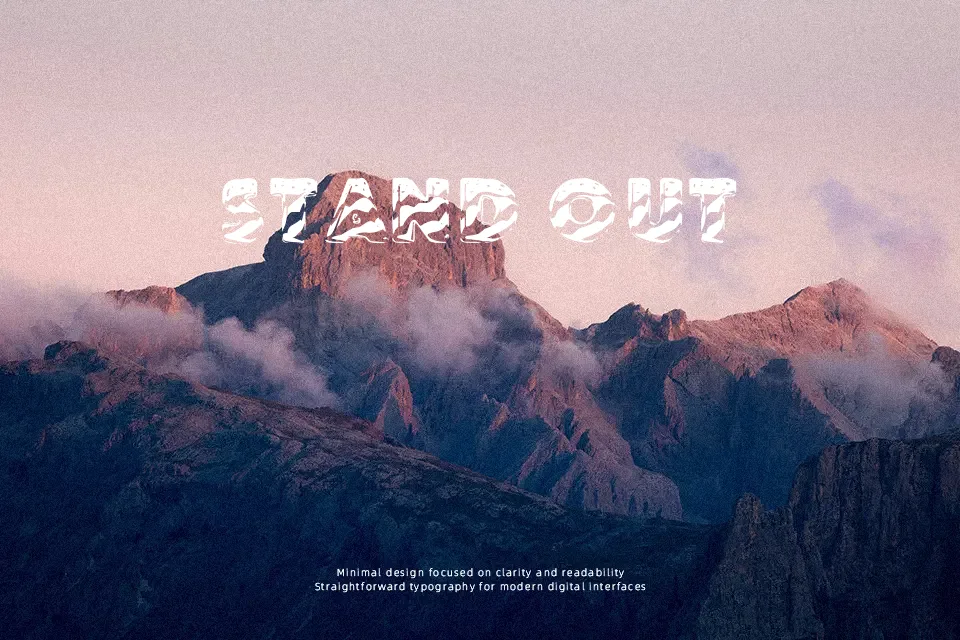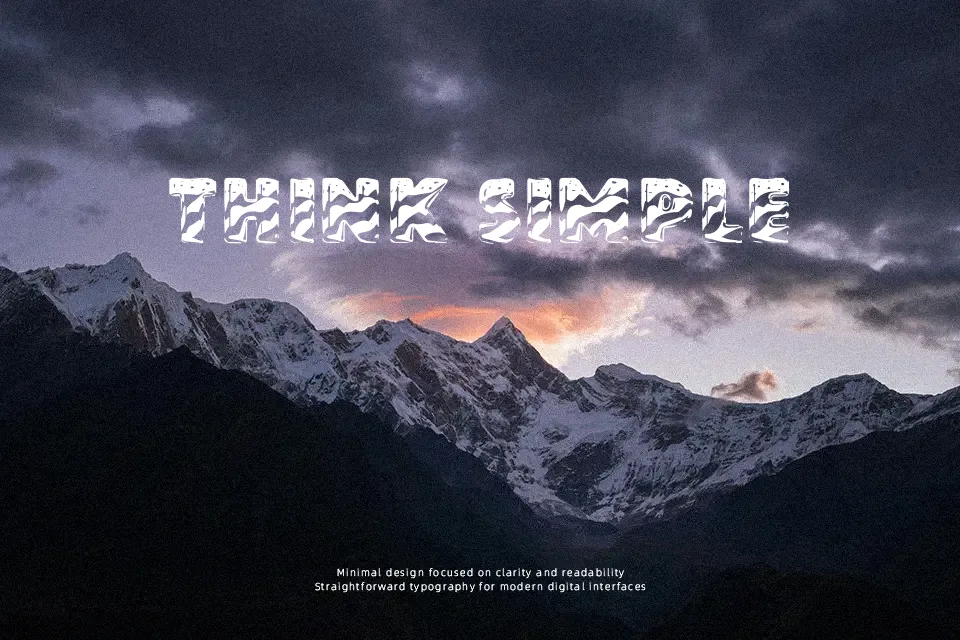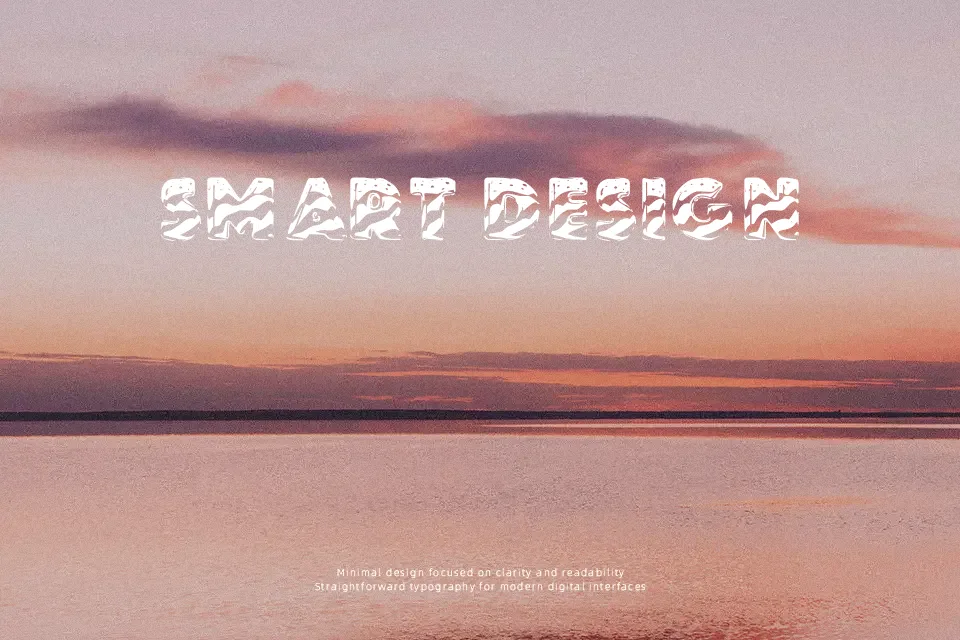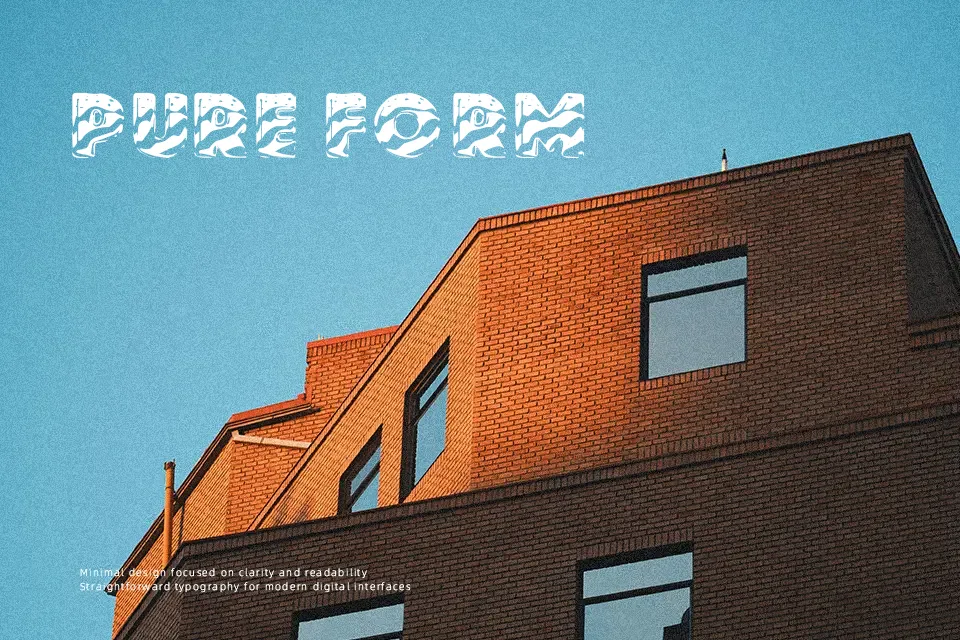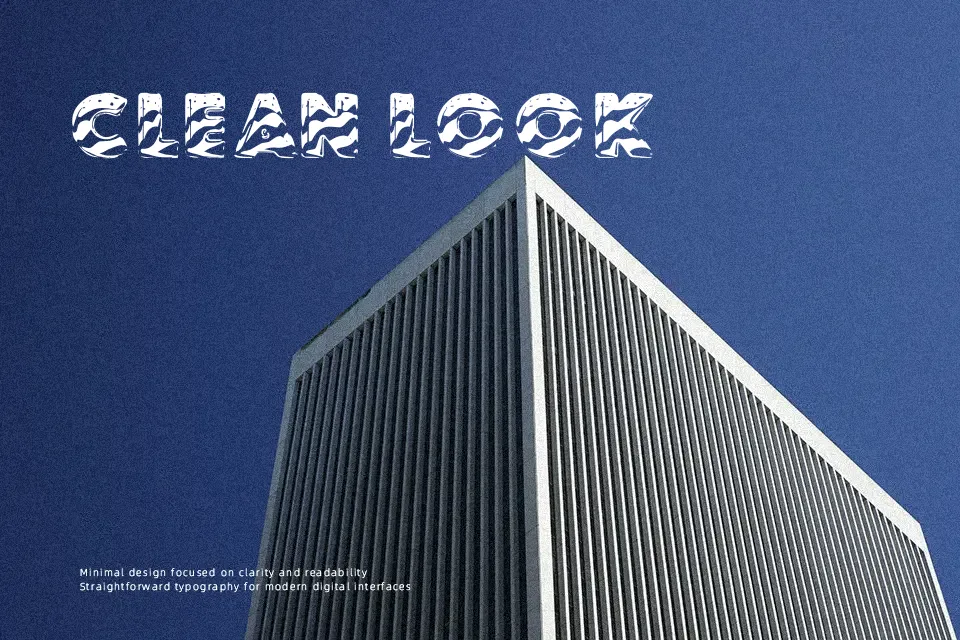
Stars & Stripes Font
Stars & Stripes Font presents an expressive display aesthetic defined by thick, blocky strokes embedded with intricate patriotic patterns. Each glyph maintains robust proportions and wide horizontal geometry, paired with uniform spacing designed to preserve glyph boundaries in dense headline arrangements. The heavy character weight and interior decorative details maximize visual impact when rendered at large scale for festival signage, athletic apparel, and event flyers. However, the complex internal texture noticeably reduces legibility at small sizes, making continuous text and multi-line paragraphs difficult to read comfortably. In practical application, the letterforms command attention immediately in bold title treatments where decorative intensity takes priority over quiet editorial pacing.
Best For: patriotic event posters, holiday merchandise, sports team banners, festival signage
Not Ideal For: long paragraph text, mobile UI body copy, technical documents, small interface labels
Perfect for branding, headline, and holiday, with a bold and decorative style.